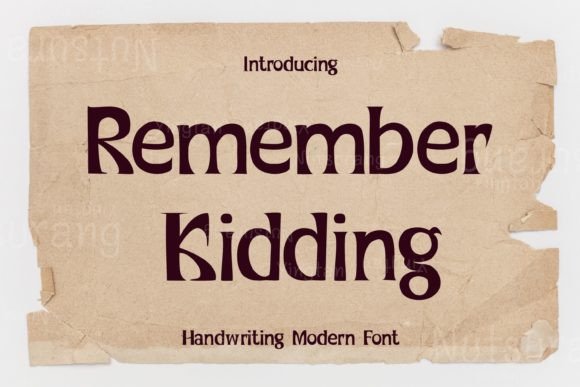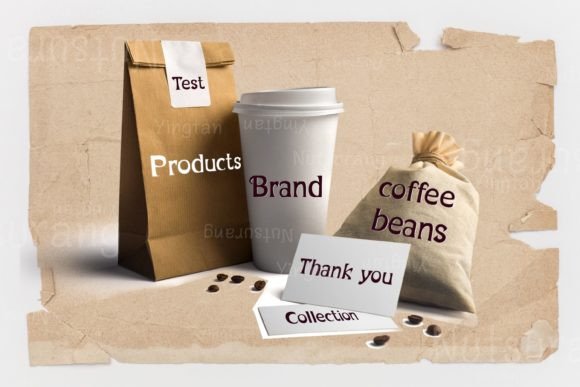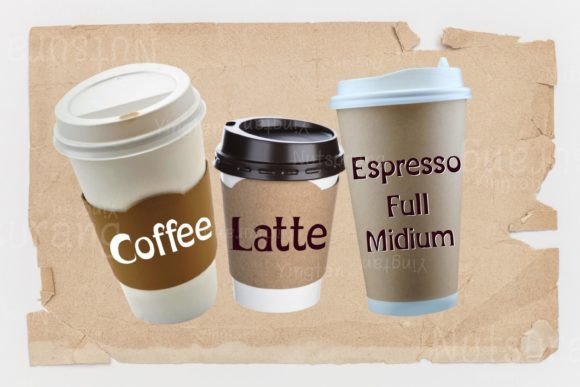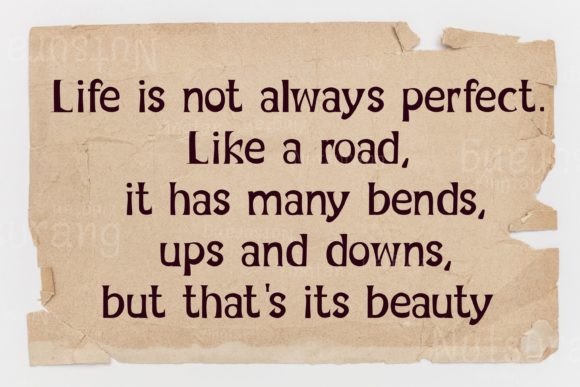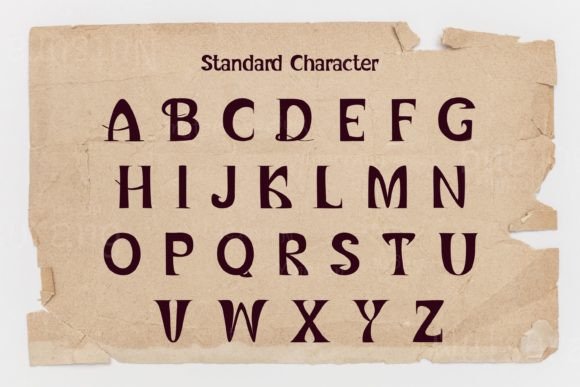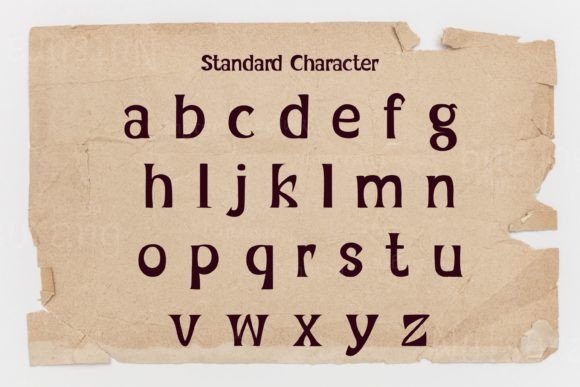
Remember Kidding Font
About Remember Kidding Font
“Remember Kidding” is a fresh and natural handwritten font that brings a lively and authentic feel to your designs. With its natural and inviting qualities, this font stands out as an incredible asset for your font library, capable of elevating a wide range of creative creations.
The fresh and natural characteristics of “Remember Kidding” make it suitable for various topics and design applications. Whether you’re working on social media graphics, branding materials, posters, or any other creative project, this font has the potential to add a touch of authenticity and charm to your text.
No matter the topic or theme, “Remember Kidding” is designed to inject a sense of liveliness and approachability into your designs. Its handwritten and natural style makes a statement, ensuring that your text is not only visually appealing but also carries a unique and personal touch.
Consider confidently adding “Remember Kidding” to your font library when you want to infuse a fresh and natural element into your designs. Its versatility allows it to adapt to different themes and contexts, making it a valuable choice for projects that require a touch of creativity and authenticity.
In essence, “Remember Kidding” is more than just a font; it’s a creative tool that brings a sense of freshness and authenticity to your projects. Embrace its natural and handwritten style to elevate your creations and make a lasting impression.